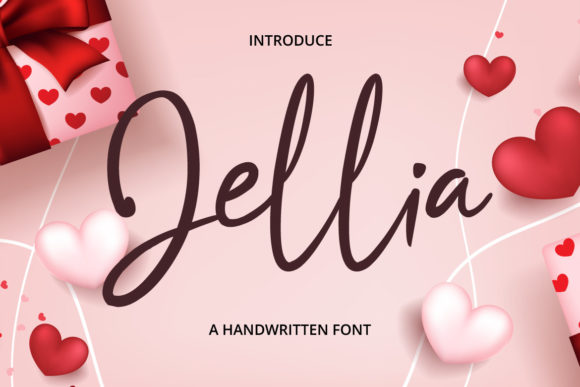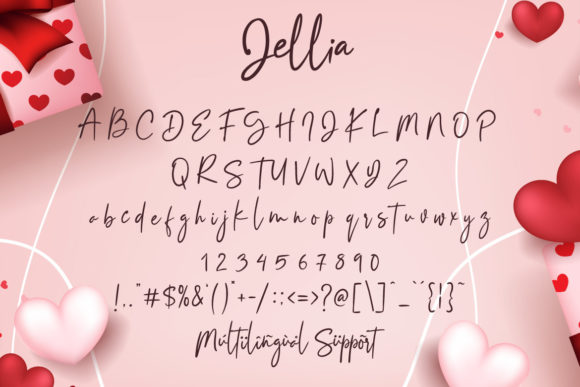
HomePersonal Use FreeJellia Personal Use Free Jellia FacebookXPinterestWhatsApp 1 of 2 About Jellia Font Jellia is a delicate, elegant, and flowing handwritten font. It has beautiful and well-balanced characters and as a result, it matches a wide pool of designs. Have fun with this beautiful font and explore its endless variations! DOWNLOAD ON CREATIVE FABRICAThis font is sold and delivered by Creative Fabrica. Font Canyon may earn a commission if you buy through this link. People also explored Inner Love Font Maillane Font Dandelion Font Mountain Moonlight Font Avelino MTL Font Spring Love Font Enhelsa Font Gilliana Diary Font Solang Font 647 0 TagsJelliaJellia Font Previous articleMahisyaNext articlePeachy Rose LEAVE A REPLY Cancel reply Comment: Please enter your comment! Name:* Please enter your name here Email:* You have entered an incorrect email address! Please enter your email address here Website: Save my name, email, and website in this browser for the next time I comment. Personal Use Free Sathscha Personal Use Free Read more about this font First Be Lucky Personal Use Free Read more about this font Nottingsam Personal Use Free Read more about this font Deco Neue Wilde Personal Use Free Read more about this font BLOG How to Install and Use Fonts on Windows, macOS, and Web Projects How to Install and Use Fonts on Windows, macOS, and Web Projects Fonts are a crucial part of design and branding. Whether you’re designing a... Best Fonts for YouTube Videos: Make Your Thumbnails Stand Out Top 10 Handwritten Fonts That Elevate Your Designs 5 Fonts That Will Dominate Design Trends in 2026